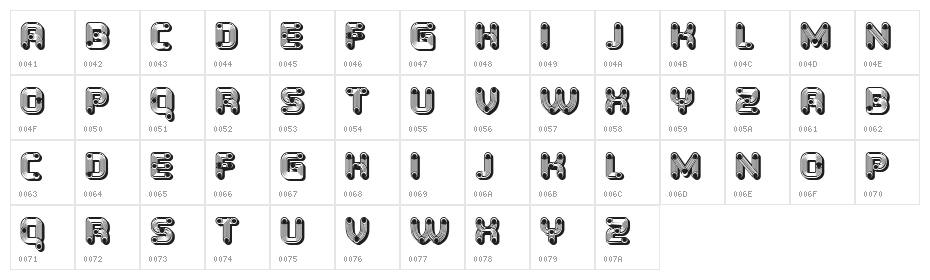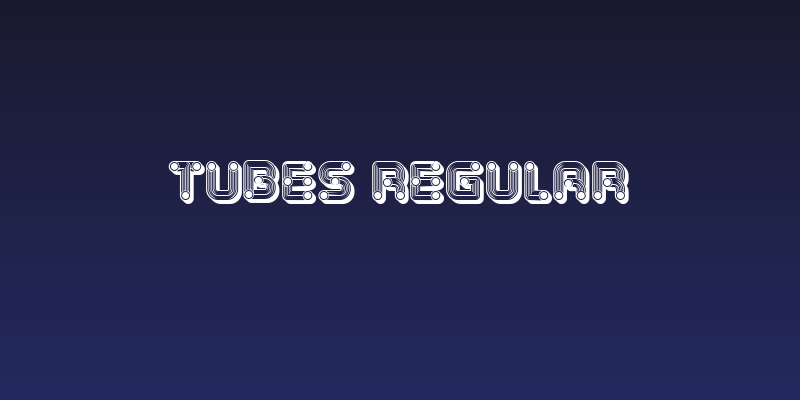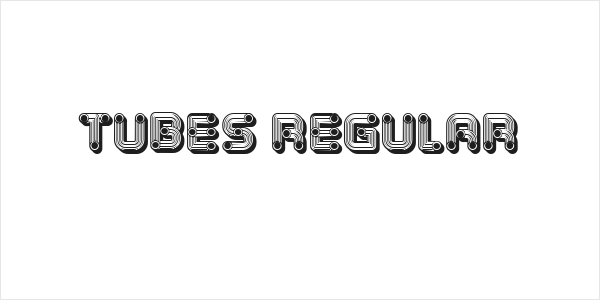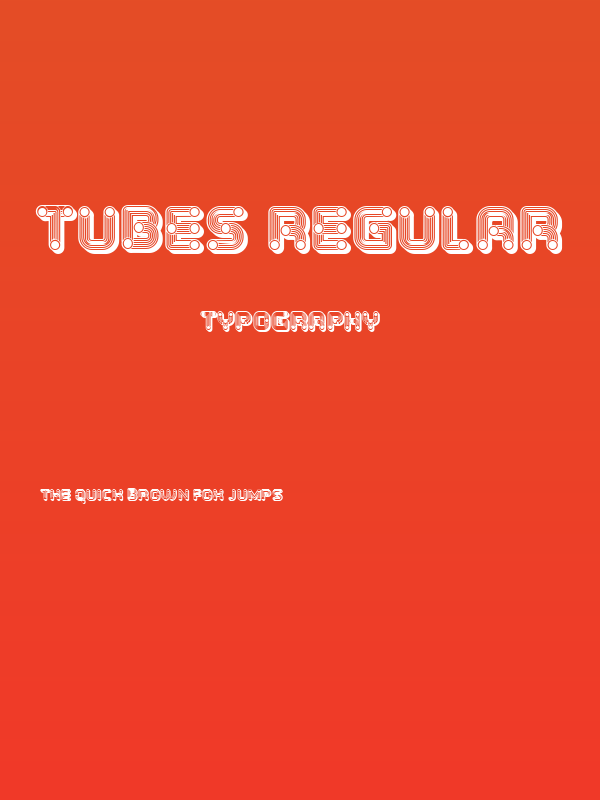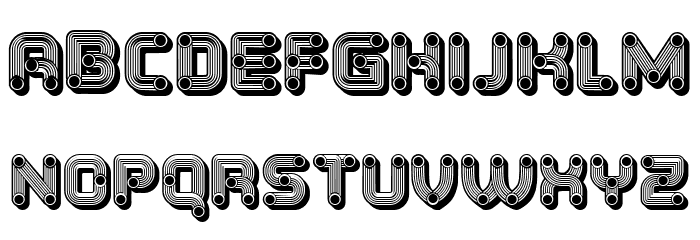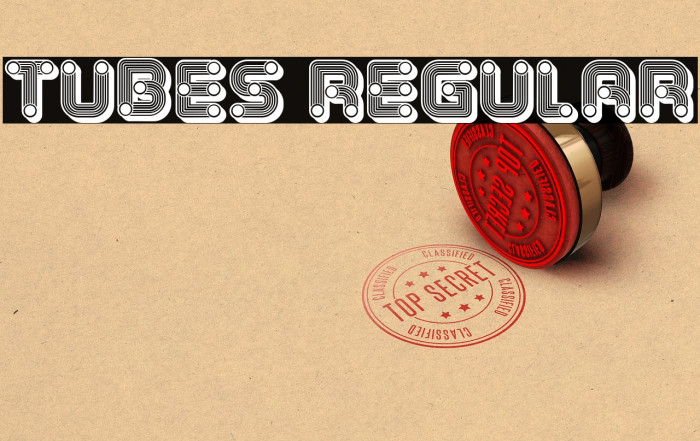
Tubes Regular Font
Tubes Regular Description
This font features a unique and intricate design that resembles interconnected tubes or circuits, creating a futuristic and technological appearance. Each character is composed of multiple parallel lines that form a cohesive and structured pattern, giving it a bold and eye-catching look. The font's geometric nature and consistent line thickness contribute to its modern and industrial feel. It is highly decorative, making it suitable for projects that require a distinctive and memorable typeface.
| Proposed Projects | Ideal for technology-themed posters, sci-fi book covers, video game titles, and branding for tech companies. |